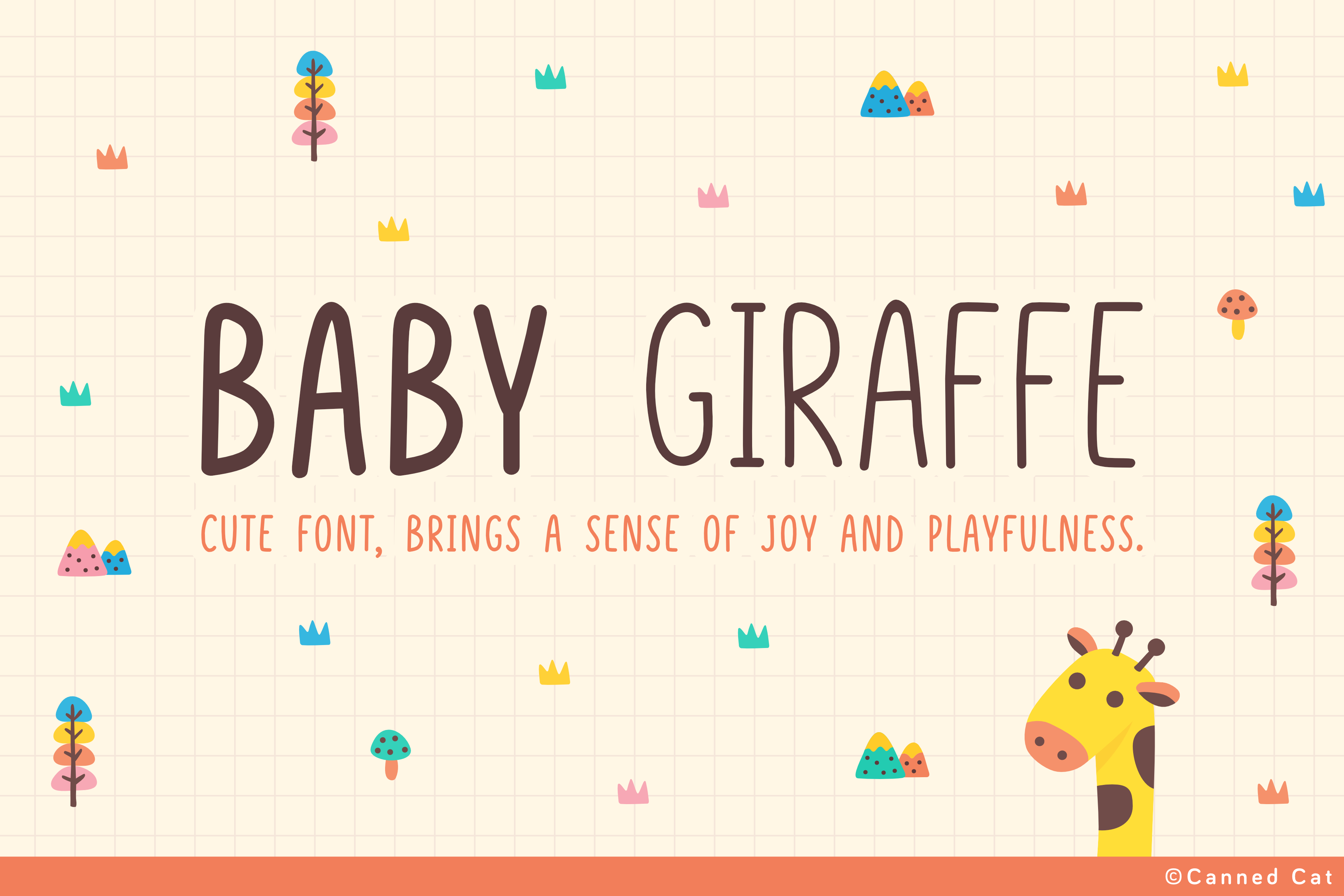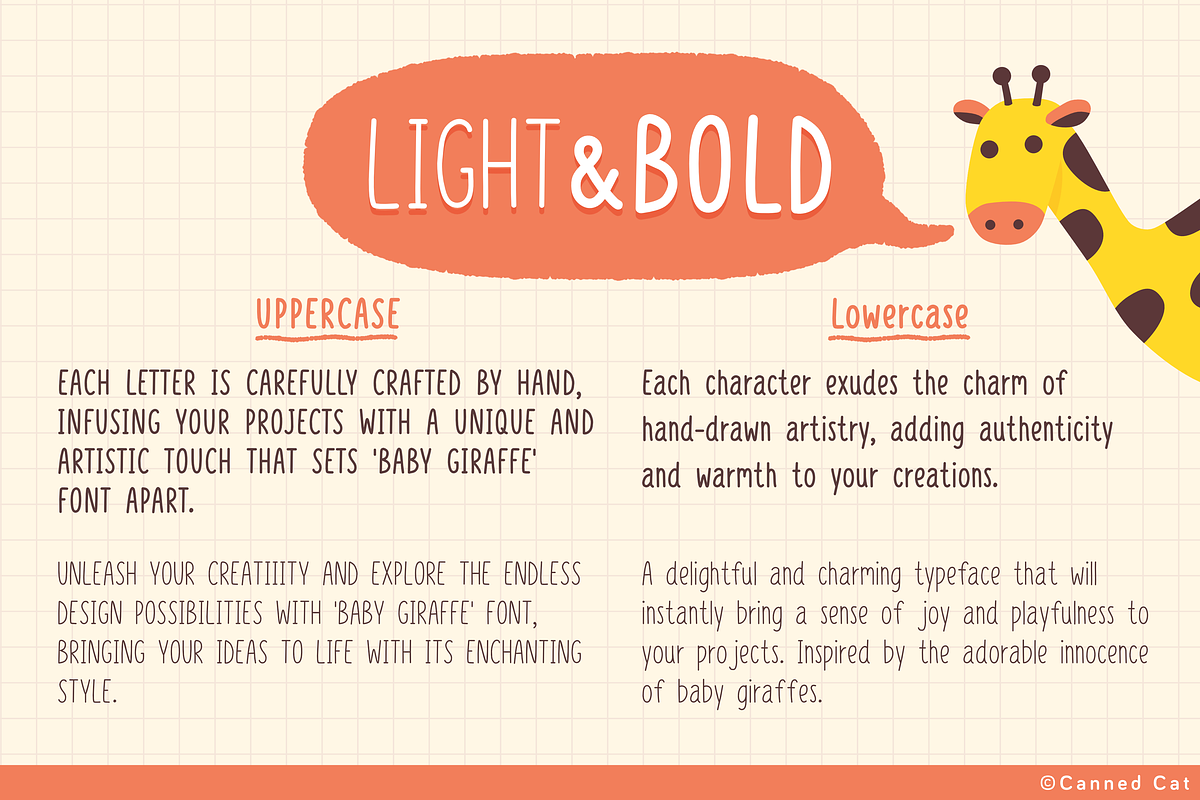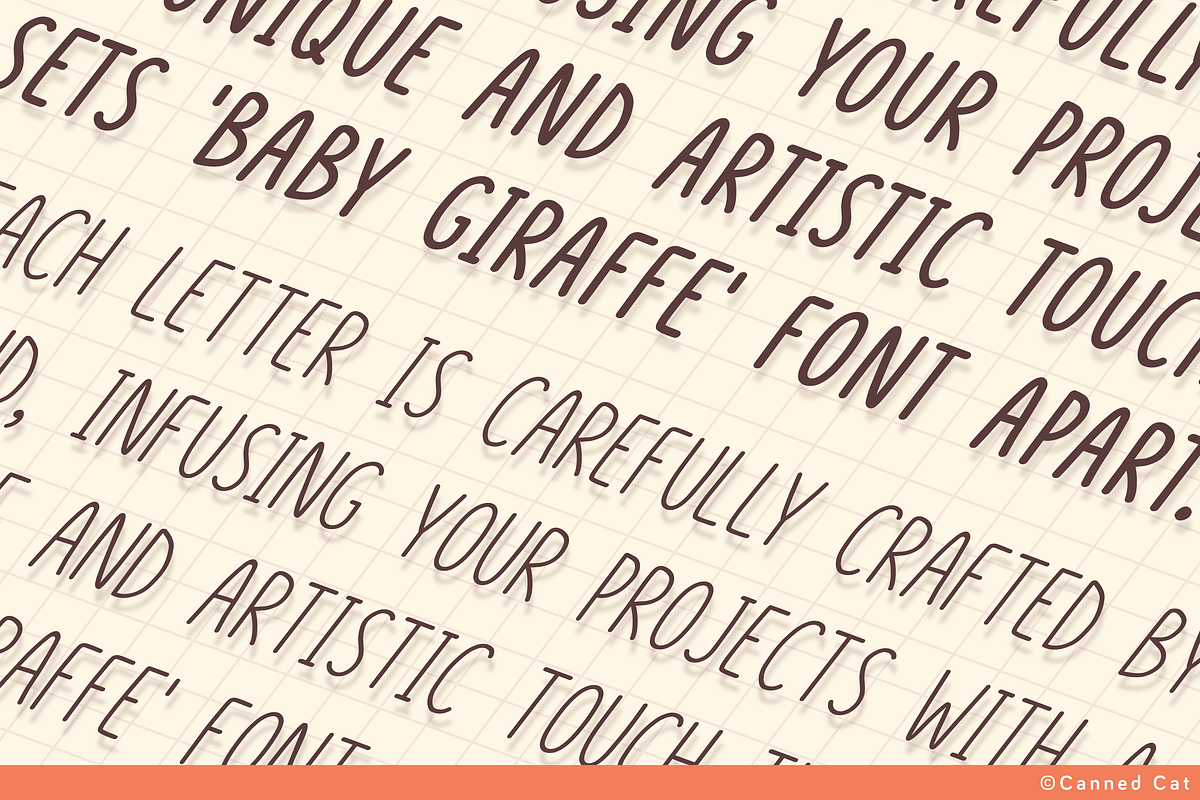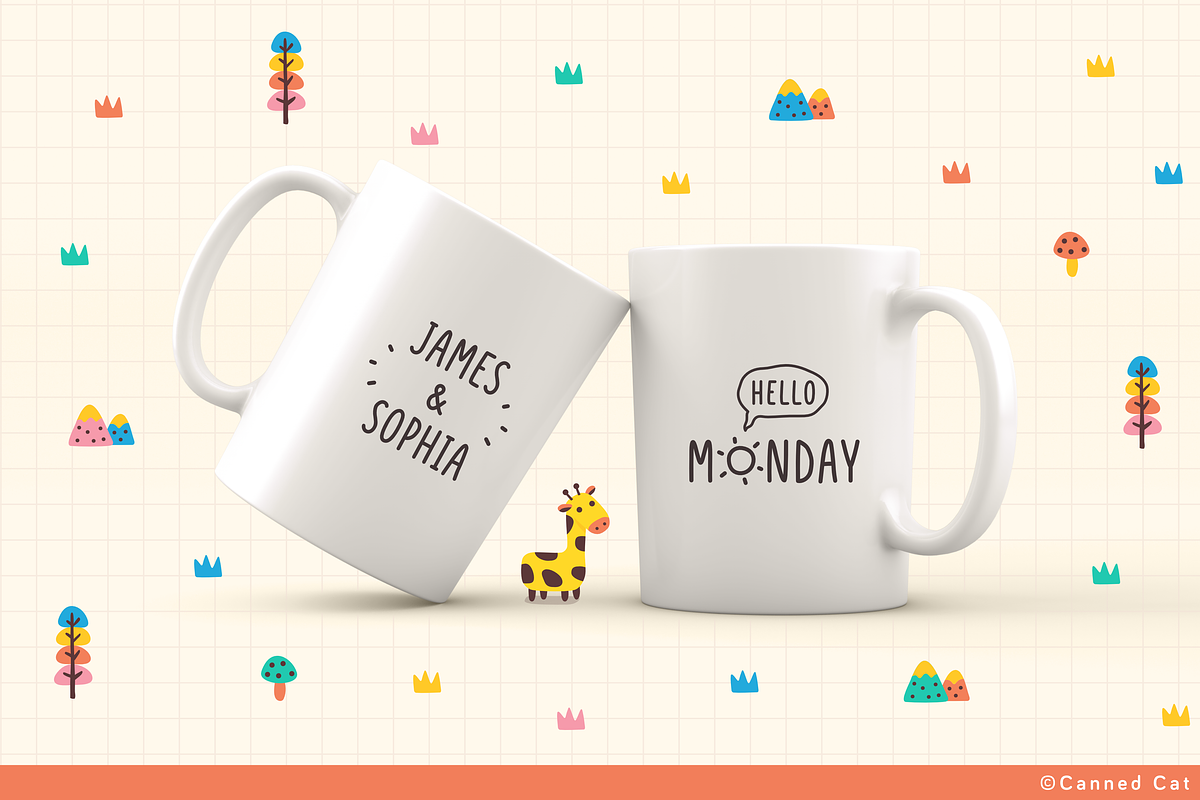
Baby Giraffe Font
Introducing 'Baby Giraffe' Font - a delightful tall typeface that combines the perfect balance of cuteness and elegance. With both light and bold styles, this whimsical font offers boundless creative possibilities for your design projects. Each letter is carefully crafted by hand, infusing your projects with a unique and artistic touch that sets 'Baby Giraffe' Font apart. Despite its playful appearance, this font ensures clarity and easy reading, maintaining the essence of your message.